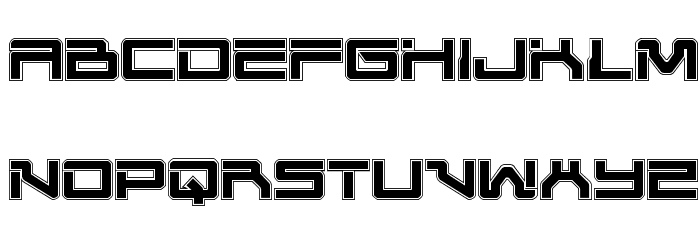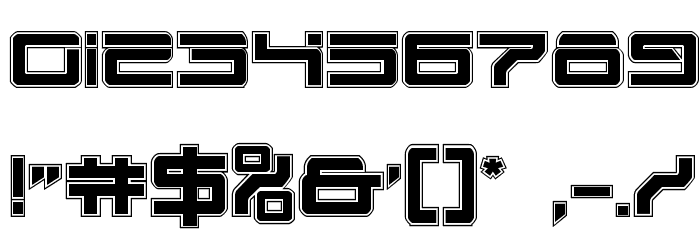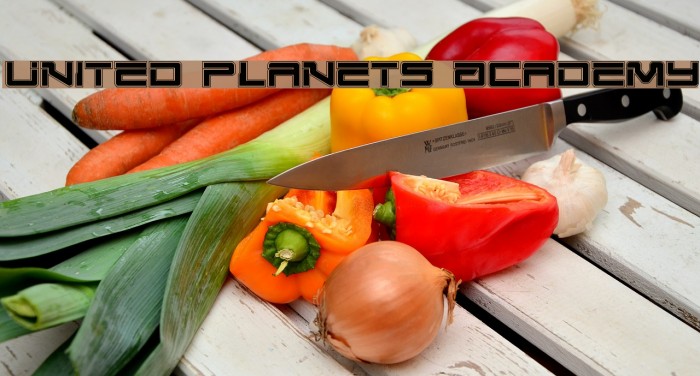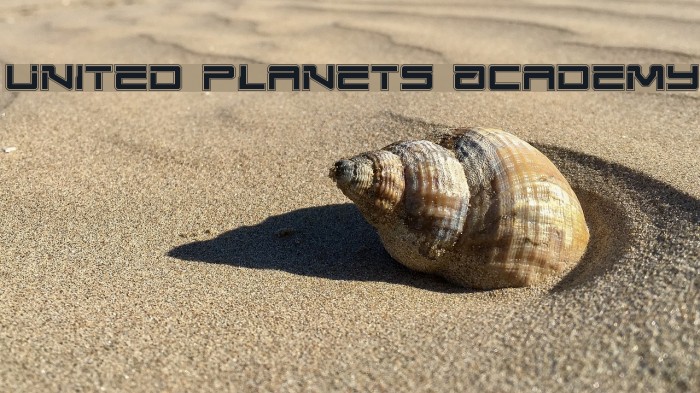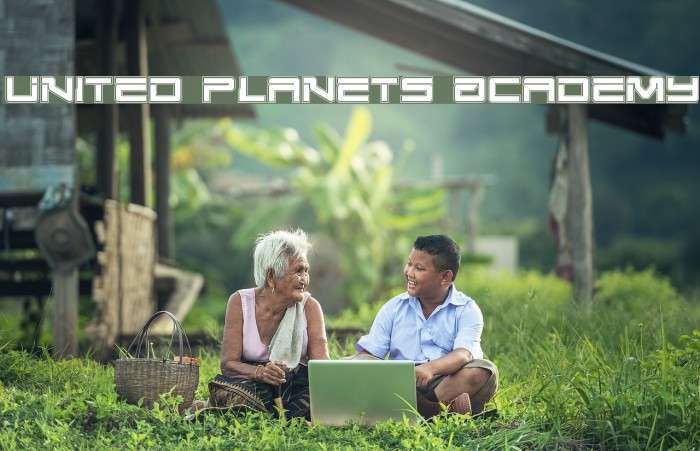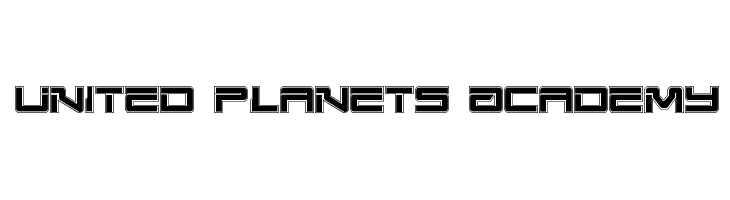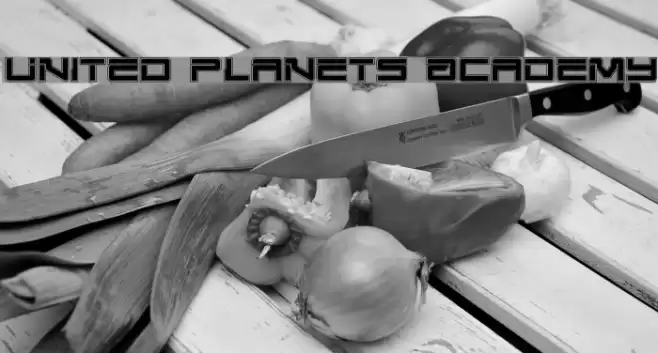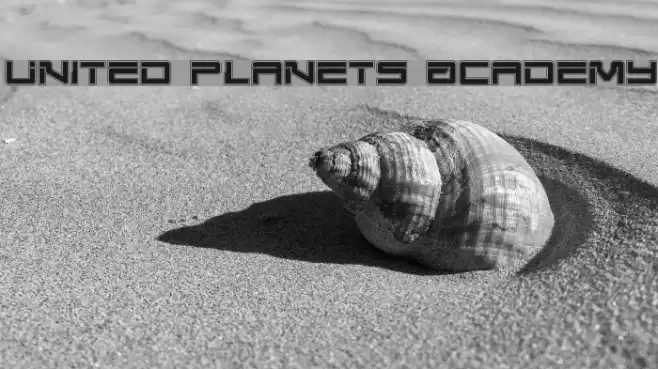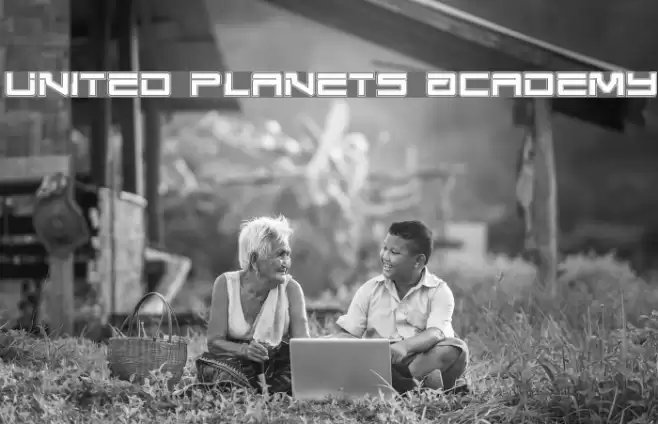
United Planets Academy Font
This font features a futuristic and geometric design, characterized by bold, block-like letters with a double-line structure. The uppercase and lowercase letters share a consistent style, emphasizing symmetry and angular shapes. The numbers and special characters maintain this cohesive look, making the font suitable for modern and tech-oriented designs. Its unique appearance is enhanced by the outlined effect, adding depth and dimension to each character.
A futuristic, geometric font with bold, outlined characters.
- Proposed Projects: Ideal for sci-fi themed projects, tech branding, video game titles, and futuristic posters.